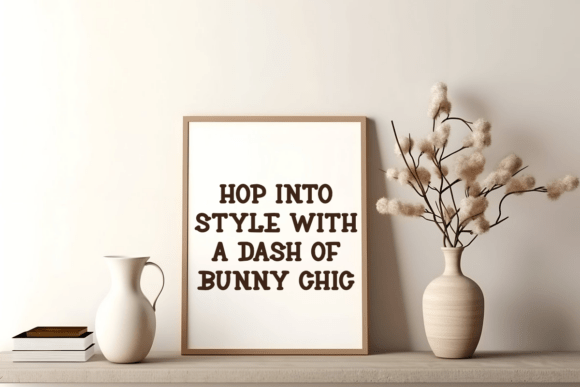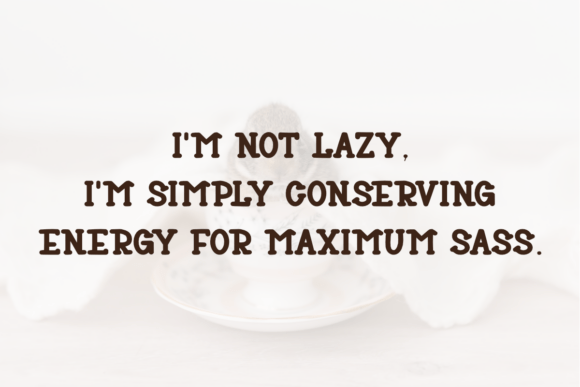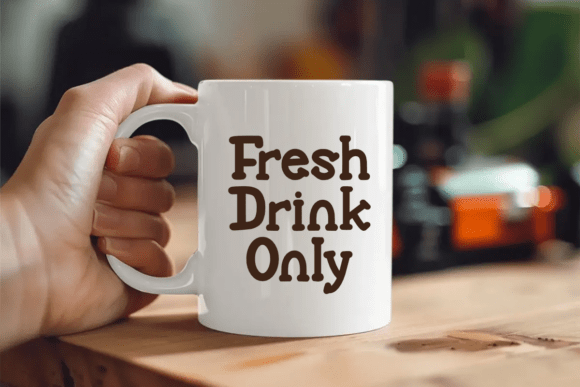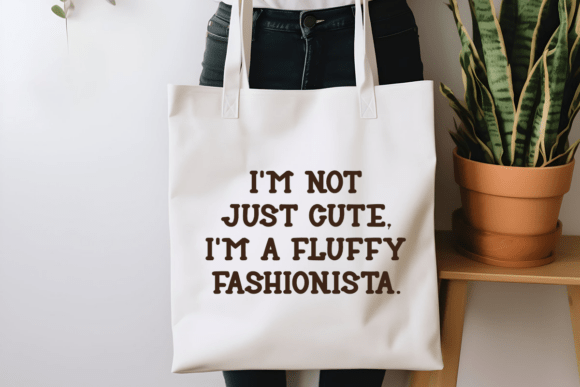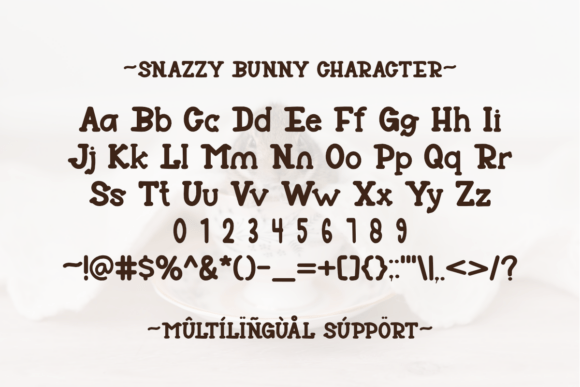
Introduction to Snazzy Bunny Font
Who hasn’t found themselves rummaging through their font library in search of the perfect font to bring a design to life? I still remember the thrill of stumbling upon a font that captures the essence of a creative project. For designers, this moment is pure magic. It’s when a font transcends its mere functionality and becomes an integral part of the design narrative.
Enter the Snazzy Bunny Font, a playful slab serif font that embodies this magic. Its chunky serifs and soft curves make it an instant favorite among designers. Whether you’re working on a children’s book, fun packaging, or quirky logo, the Snazzy Bunny Font is sure to bring a warm, whimsical personality to your design.
What makes the Snazzy Bunny Font truly valuable is its versatility. It’s perfect for designers looking to add a touch of whimsy to their projects, and its transparent background makes it ideal for high-quality designs. With its free download available, this font is a must-have for any design resource library.
Key Features of Snazzy Bunny Font
• High-quality, unique design ideal for creative projects, with a playful and whimsical touch.
• Designed to be highly versatile, suitable for a wide range of creative projects, from digital art to print materials.
Honest Review: Snazzy Bunny Font
I recently stumbled upon the Snazzy Bunny Font and was excited to give it a try. As a designer, I’m always on the lookout for high-quality design resources that can elevate my creative projects.
• ✨ High-quality font with a unique, playful design that’s perfect for kids’ projects or any other creative endeavor.
• ✨ Compatible with a range of software and platforms, making it a versatile design resource.
• ⚠️ The font is not suitable for projects that require a transparent background, as it doesn’t support this feature.
Overall, I’m impressed with the Snazzy Bunny Font and think it’s a great addition to any designer’s toolkit. While it may not be perfect, its unique design and versatility make it a valuable resource for creative projects.
The Snazzy Bunny Font is a unique and eye-catching design resource, perfect for creative projects that require a high quality, distinctive look. With a transparent background, this font is incredibly versatile and can be used in a variety of applications.
Tips for Getting the Most Out of the Snazzy Bunny Font
To get the most out of this font, try using it in conjunction with other bold and playful design elements. Experiment with different color combinations and layout options to create a truly unique look.
The Snazzy Bunny Font is perfect for a variety of creative projects, including children’s books, party invitations, and social media graphics. Its fun and playful design makes it an excellent choice for any project that requires a lighthearted and engaging tone.